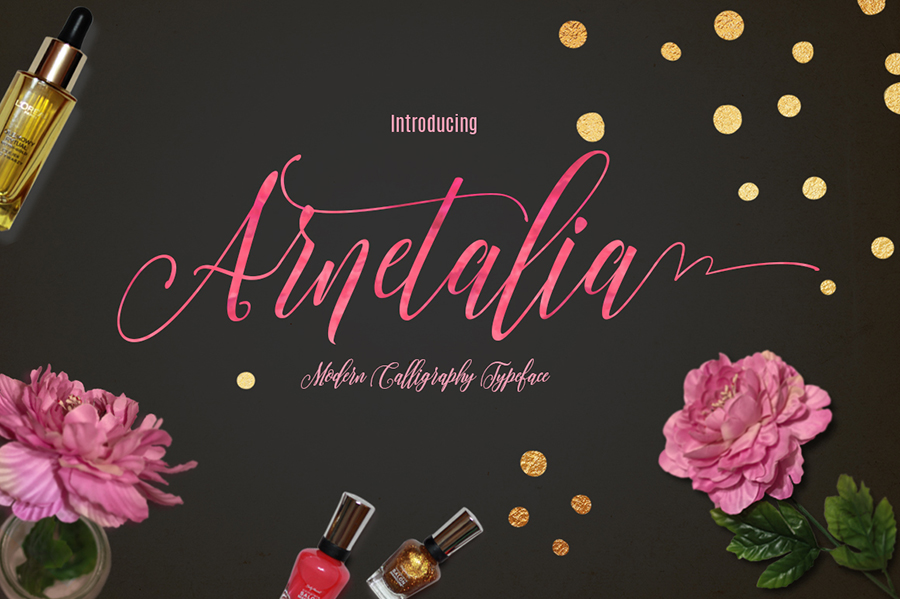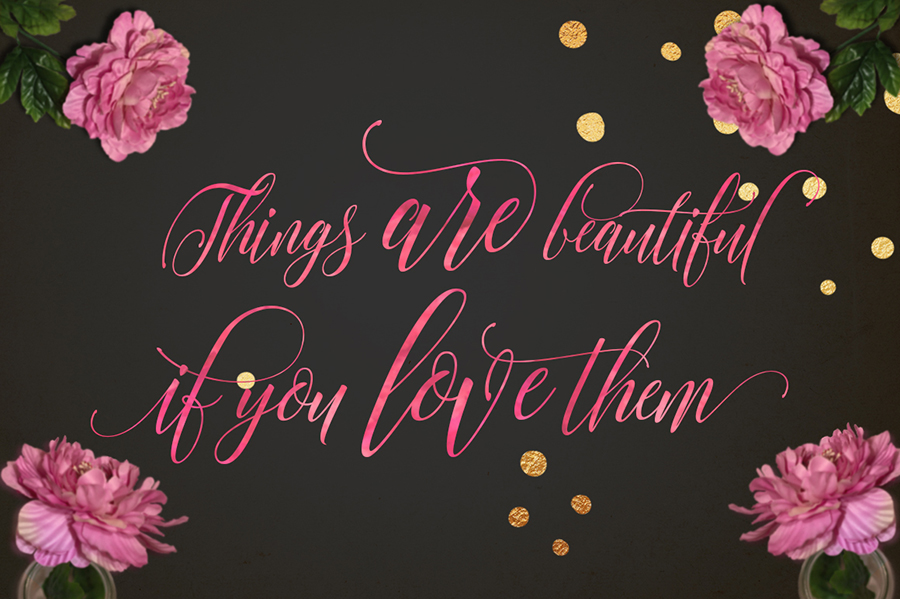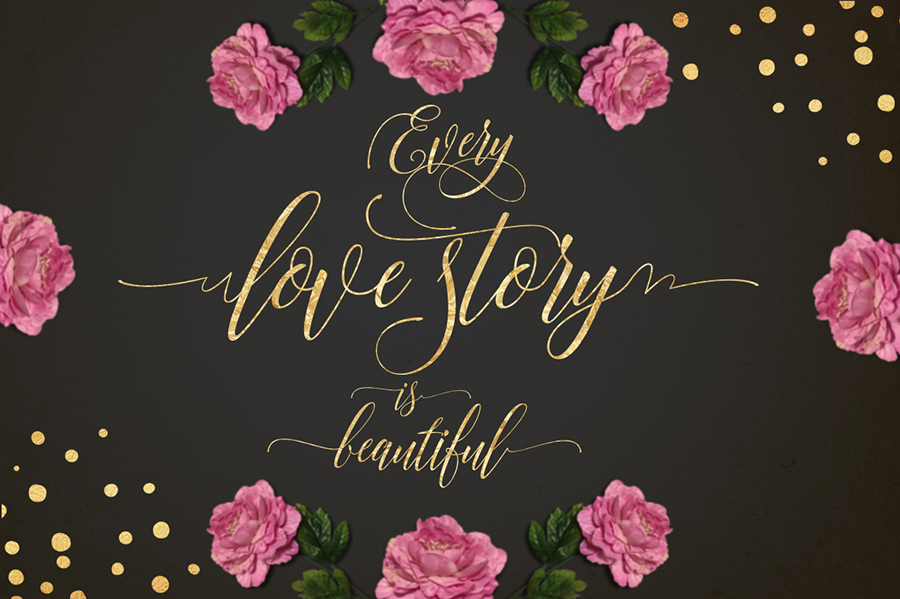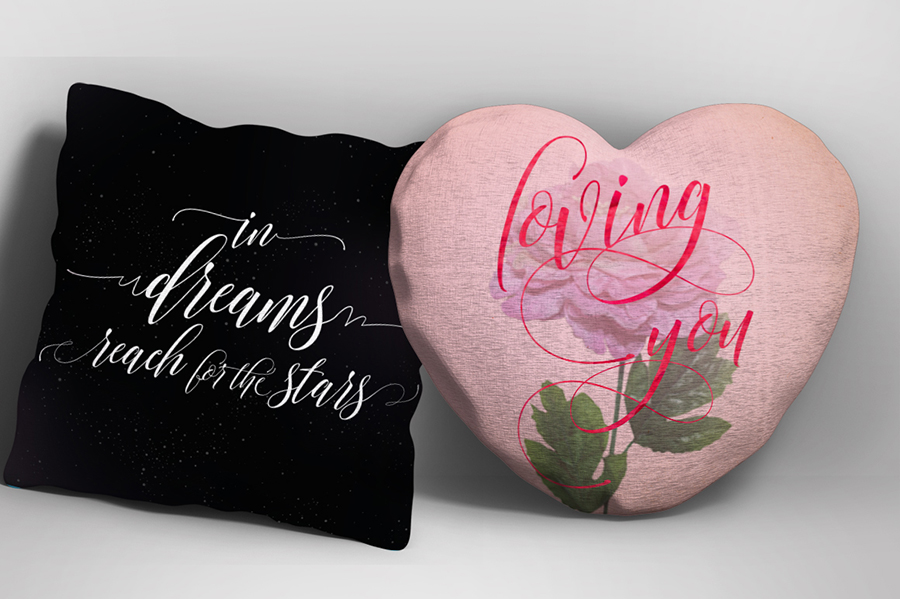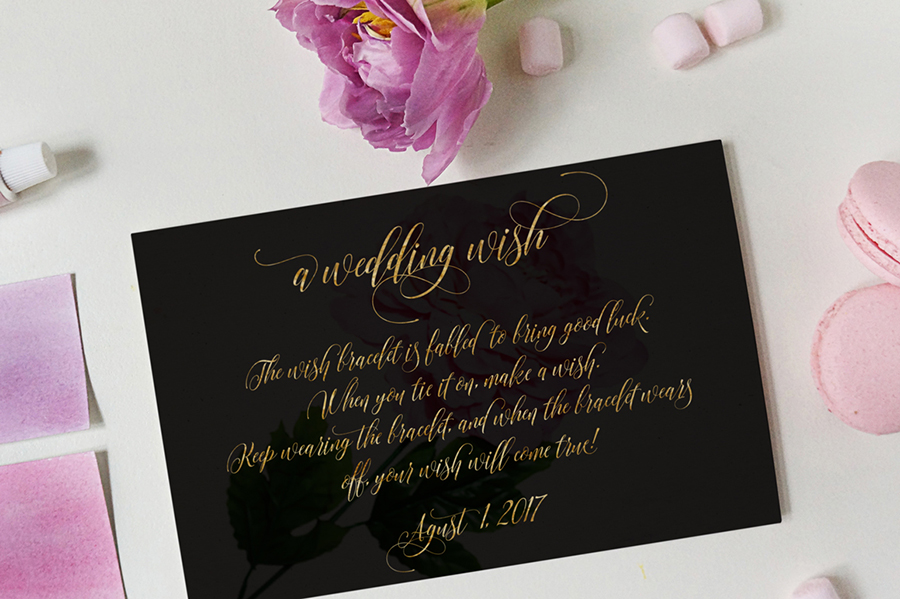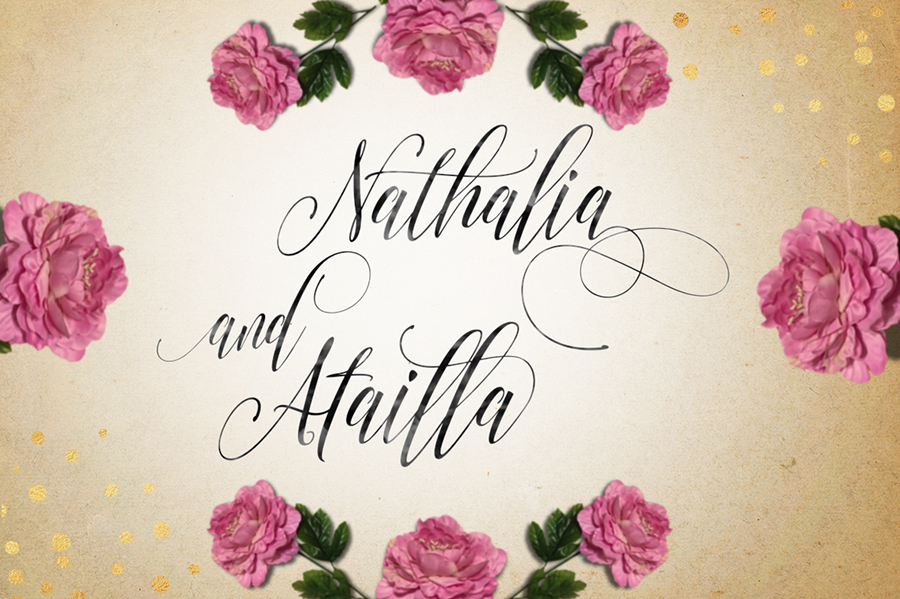
Arnetalia Font
Arnetalia is a beautiful modern calligraphy typeface with natural hand-writing styles and irregularly bouncy characters. This script is great to give some personal touches in any designs you’re currently working on; wedding invitations, greeting cards, scrapbooks, etc.